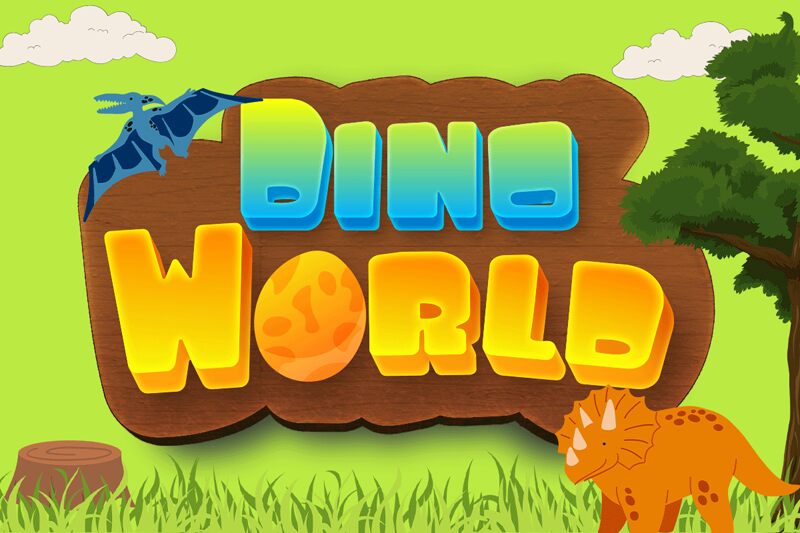
Dino World font, designed by Kong Font, is a vibrant display typeface that exudes playful energy. Its bold, cartoonish style features rounded edges and exaggerated forms, giving it a friendly and inviting appearance. The character shapes are distinctly playful, reminiscent of whimsical storytelling and adventure.
This font stands out with its striking size and visual impact, making it perfect for capturing attention in children's book covers, theme park signage, or engaging promotional materials. Whether crafting exciting invitations or creating dynamic branding elements for family-centric businesses, Dino World brings an element of fun and creativity that resonates with audiences of all ages. Its delightful style ensures it makes a memorable impression wherever it's used.